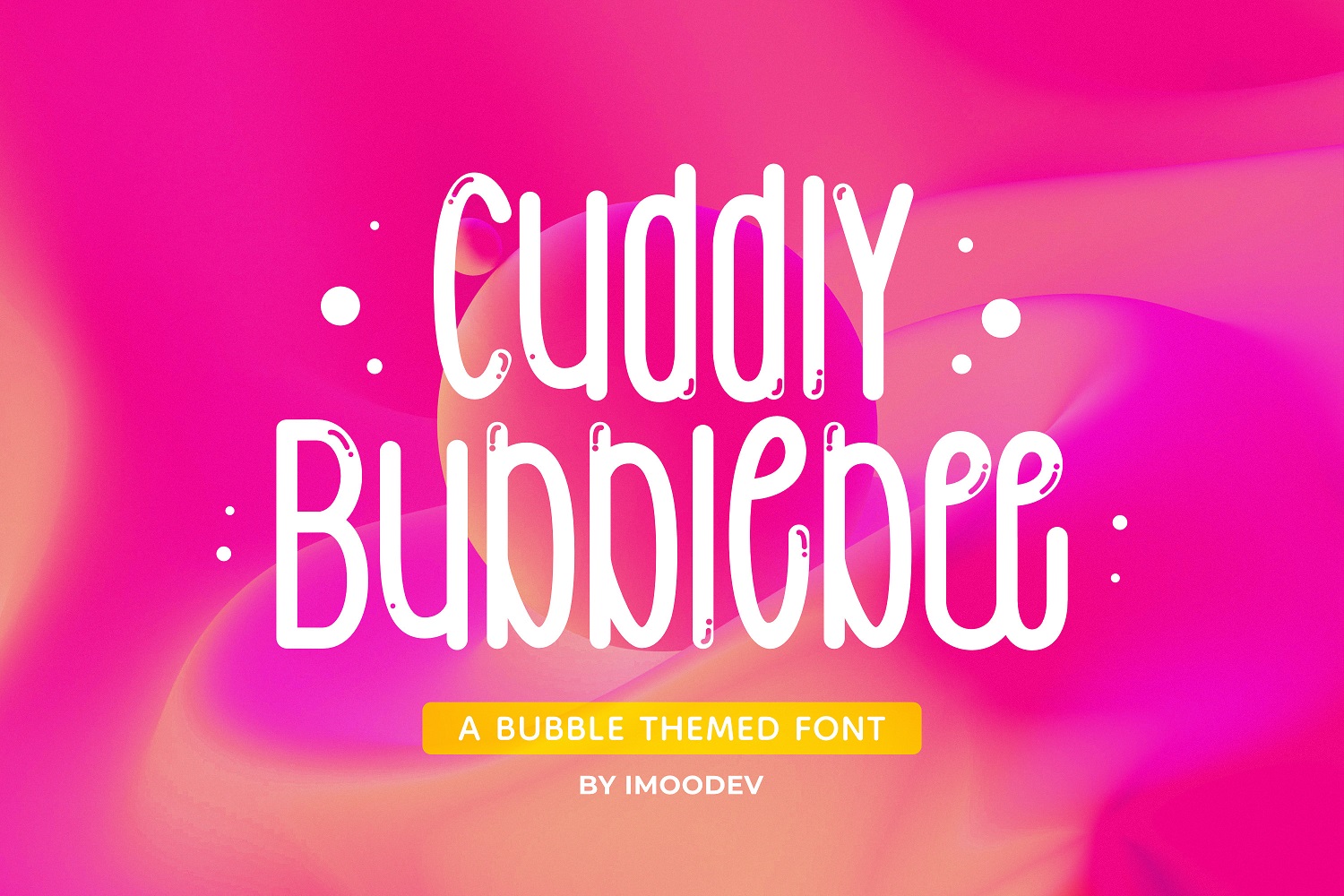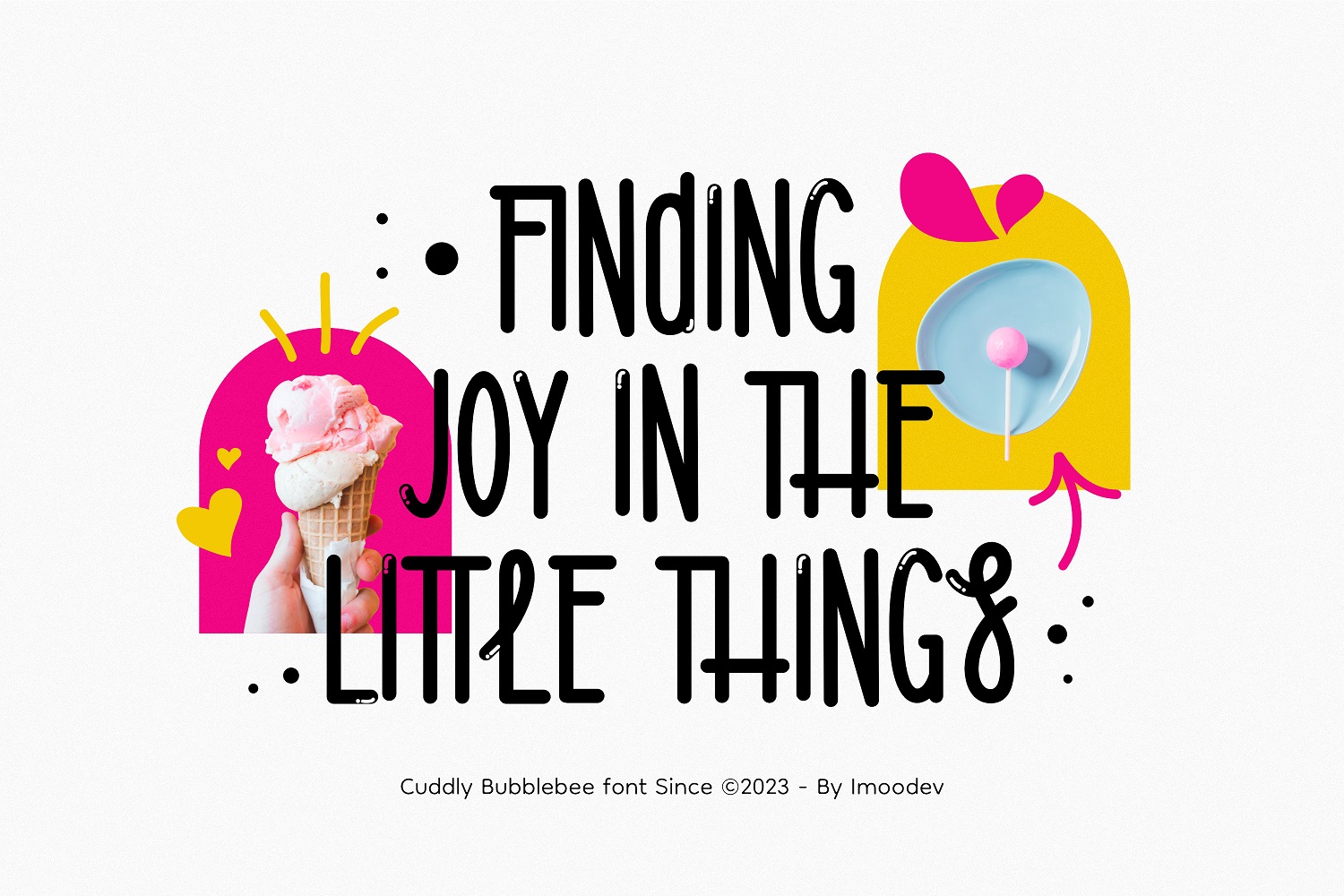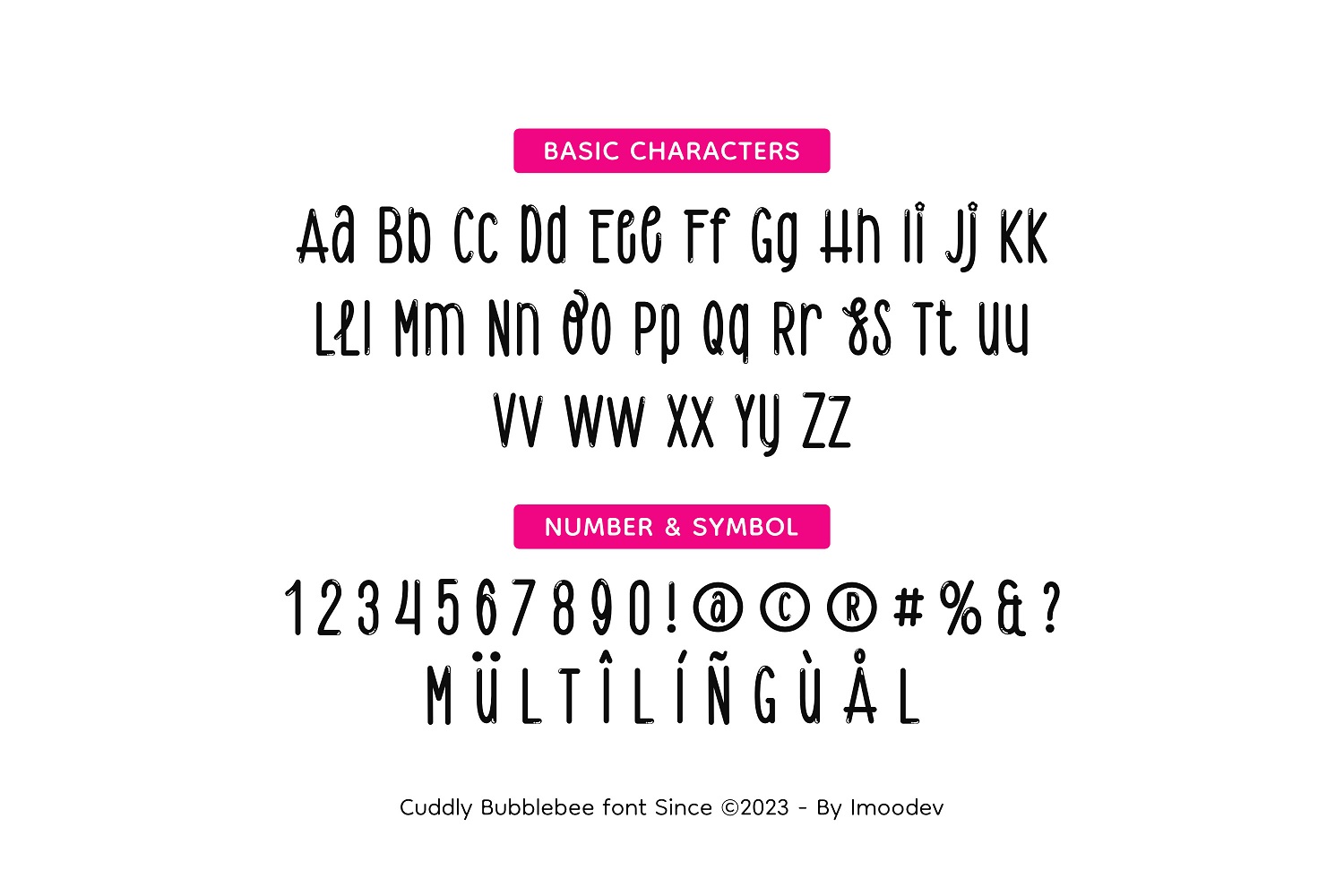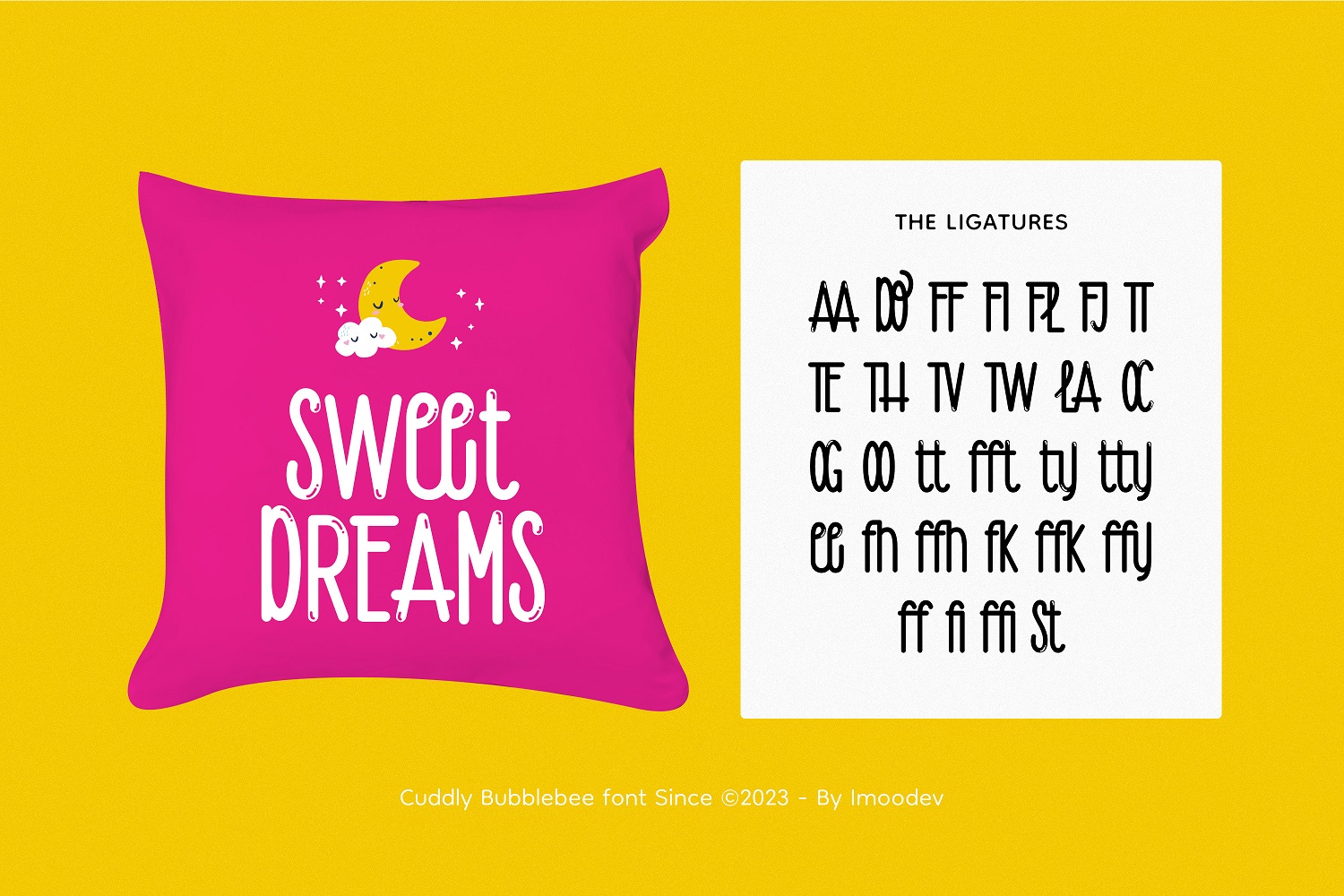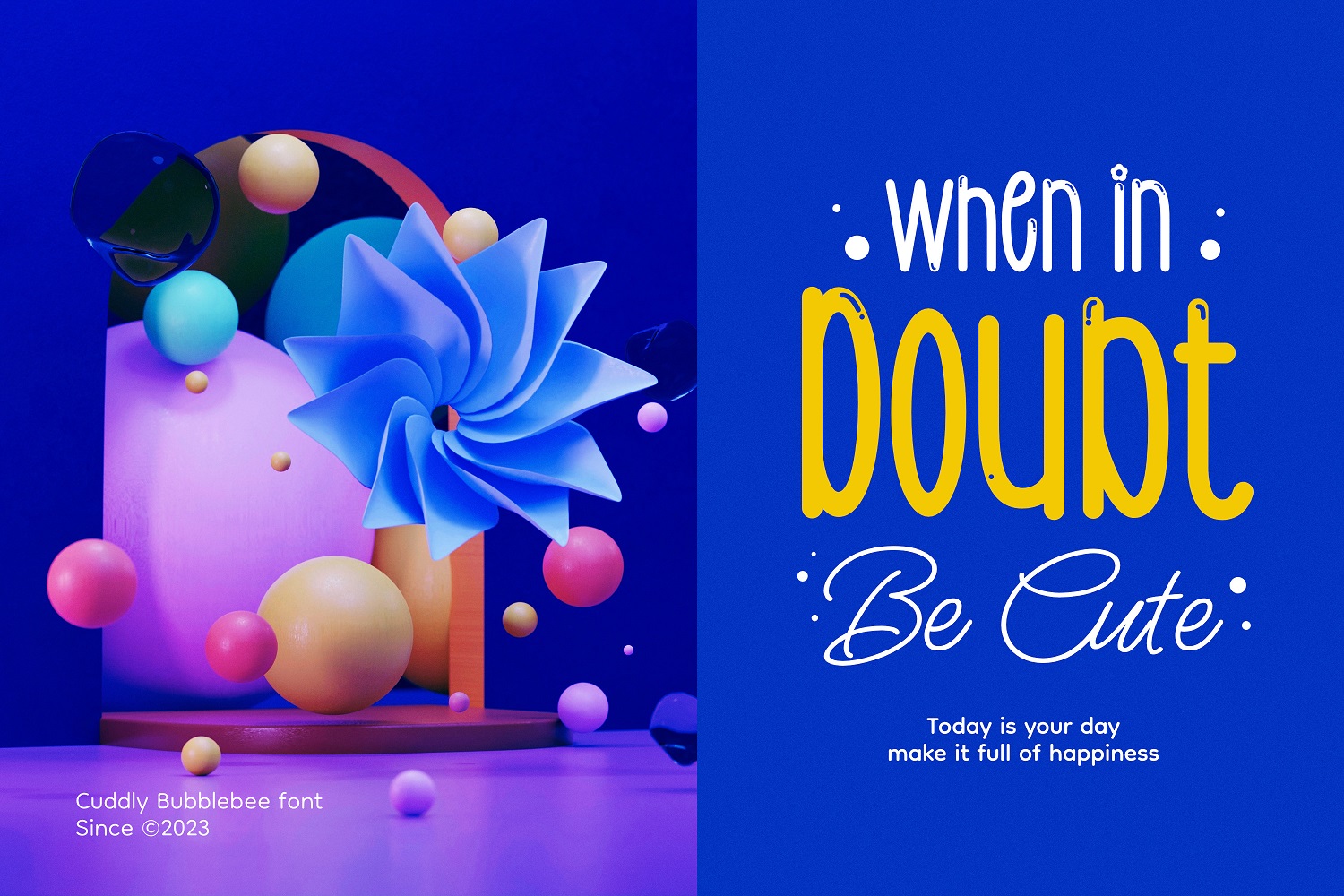
Cuddly Bubblebee is a playful and bubbly font designed to bring joy and lighthearted charm into your projects. Its rounded strokes with bubble-inspired accents make it perfect for children’s books, greeting cards, posters, packaging, and any design that needs a dose of cuteness and positivity. The font’s cheerful personality shines through in every letter, creating a fun and engaging visual experience.
With ligatures, alternates, and multilingual support, Cuddly Bubblebee adapts seamlessly to a variety of creative needs. Whether you’re crafting adorable quotes, playful branding, or colorful designs, this font delivers a lively and whimsical touch that makes your message truly unforgettable.